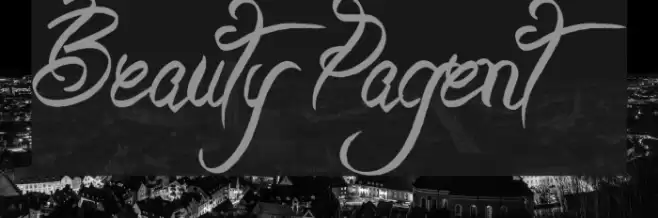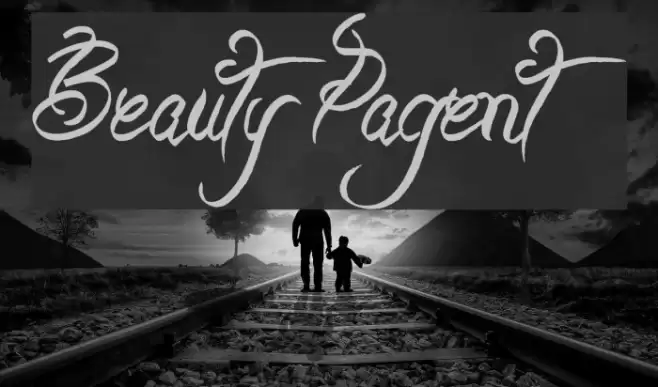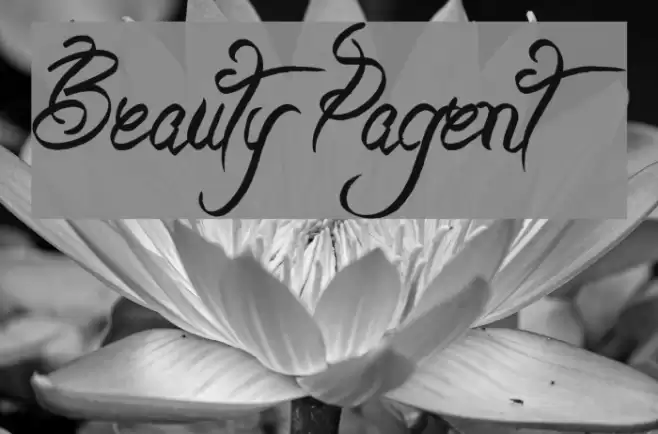
Beauty Pagent Font
Beauty Pagent Description
This font features an elegant and flowing script style, characterized by its intricate and decorative letterforms. The uppercase letters exhibit a high degree of flourish and curvature, creating a sense of sophistication and artistry. The lowercase letters maintain this ornate style, with smooth, connected strokes that enhance readability while preserving the decorative essence. The font's overall appearance is reminiscent of calligraphy, making it suitable for projects that require a touch of elegance and refinement. The characters are well-balanced, with consistent stroke widths that contribute to a harmonious visual flow.
An elegant, flowing script font with intricate, decorative letterforms from Uncategorized fonts.